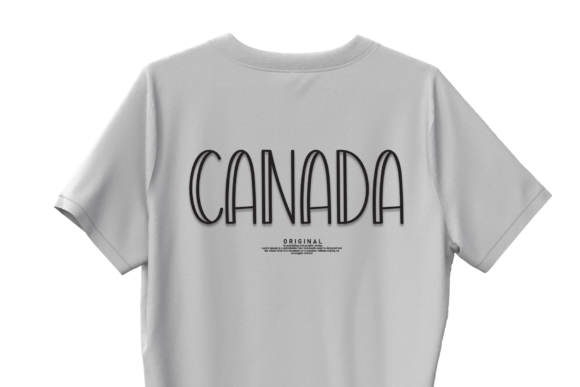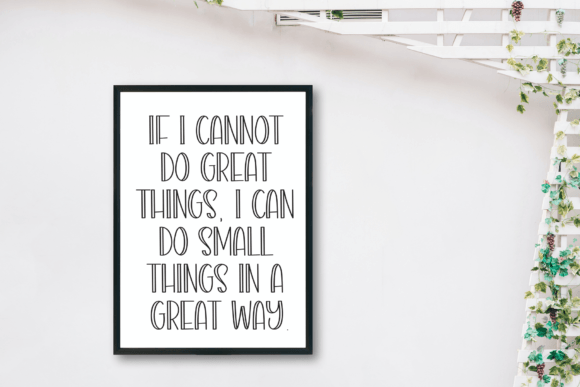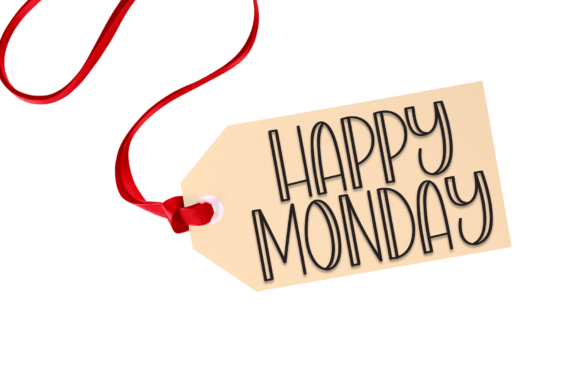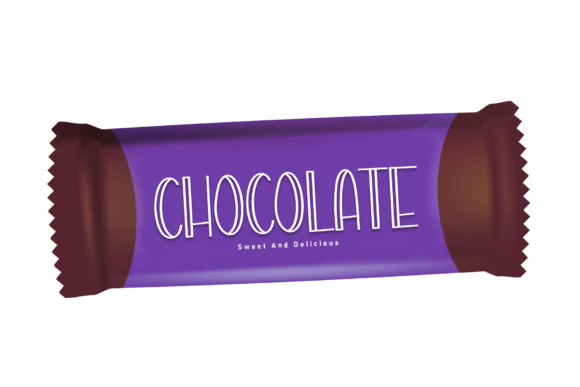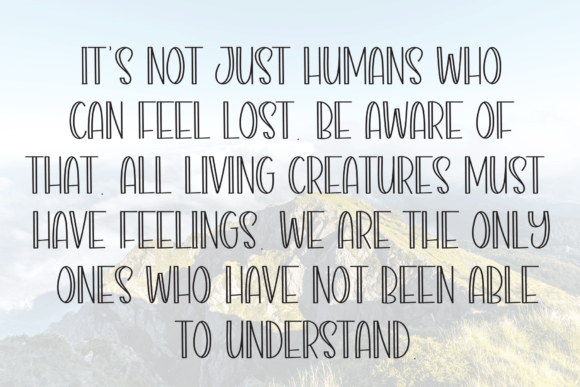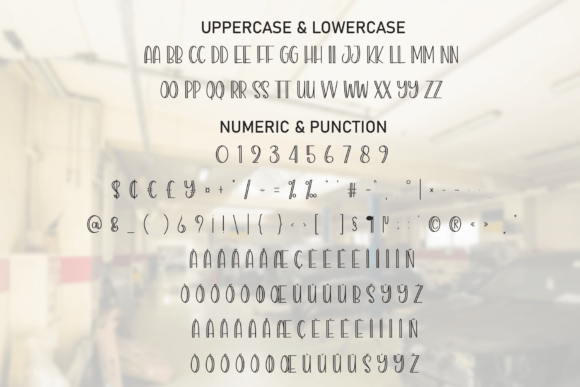
Introducing Garage Font: The Playful Handwritten Display Font
Are you looking for a font that can add a touch of whimsy and charm to your designs? Look no further than Garage Font, a delightfully playful and handwritten display font that is sure to captivate your audience. With its beguiling, sweet, and friendly design, Garage Font is the perfect choice for crafters and designers who want to elevate their typography to an art form.
The Characteristics of Garage Font
Garage Font is a handwritten display font that boasts a unique and charming personality. Its playful and whimsical design makes it perfect for a variety of design projects, from wedding invitations and greeting cards to posters and social media graphics. The font features:
- Handwritten style: Garage Font has a distinctly handwritten feel, with each letter and stroke carefully crafted to create a sense of warmth and personality.
- Playful and whimsical: The font’s playful and whimsical design makes it perfect for designs that require a touch of fun and humor.
- Sweet and friendly: Garage Font’s sweet and friendly design makes it perfect for designs that require a touch of warmth and approachability.
Uses for Garage Font
Garage Font is a versatile font that can be used for a wide range of design projects, including:
- Wedding invitations: Add a touch of whimsy and romance to your wedding invitations with Garage Font.
- Greeting cards: Create heartwarming and personalized greeting cards with Garage Font.
- Posters and flyers: Use Garage Font to create eye-catching posters and flyers that grab attention.
- Social media graphics: Add a touch of personality to your social media graphics with Garage Font.
- Branding and packaging: Use Garage Font to create unique and memorable branding and packaging designs.
Benefits of Using Garage Font
There are many benefits to using Garage Font in your designs, including:
- Unique and memorable: Garage Font is a unique and memorable font that will help your designs stand out from the crowd.
- Emotional connection: The font’s playful and whimsical design helps to create an emotional connection with your audience.
- Versatile: Garage Font can be used for a wide range of design projects, from wedding invitations to social media graphics.
- Easily readable: Despite its playful design, Garage Font is easily readable, making it perfect for designs that require a clear and concise message.
Tips for Using Garage Font
Here are some tips for using Garage Font in your designs:
- Use it sparingly: Garage Font is a bold and playful font, so use it sparingly to avoid overwhelming your design.
- Pair it with other fonts: Pair Garage Font with other fonts to create a unique and visually interesting design.
- Experiment with colors: Garage Font looks great in a variety of colors, so experiment with different colors to find the perfect fit for your design.
- Have fun: Most importantly, have fun with Garage Font! Its playful design is perfect for designers who want to add a touch of whimsy to their designs.
Garage Font is a delightfully playful and handwritten display font that is sure to captivate your audience. With its beguiling, sweet, and friendly design, Garage Font is the perfect choice for crafters and designers who want to elevate their typography to an art form. Whether you’re creating wedding invitations, greeting cards, or social media graphics, Garage Font is a versatile font that can help you create unique and memorable designs. So why not give Garage Font a try and see the magic for yourself?